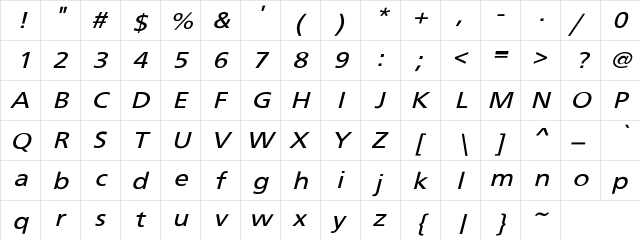
Basler Expanded Oblique 2 Regular Font Preview
Basler Expanded Oblique 2 Regular
Design Context for Basler Expanded Oblique 2 Typeface
Basler Expanded Oblique 2 is a composed and adaptable typeface that performs quietly and consistently across a wide range of design contexts. The slanted form adds forward momentum and visual energy.
Pro Tip: Try Basler Expanded Oblique 2 for annotation and caption copy alongside an upright companion — the contrast in angle creates a dynamic but ordered typographic system.